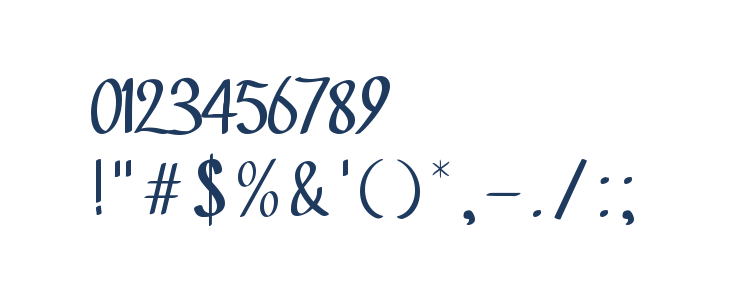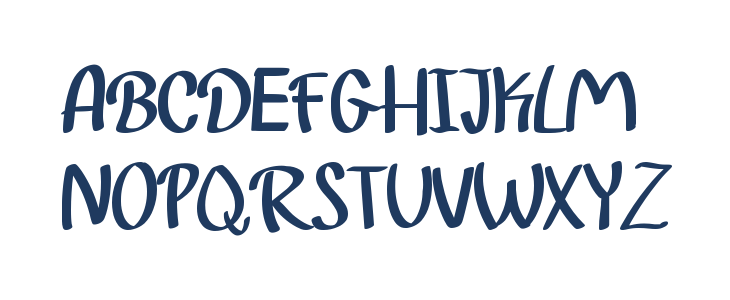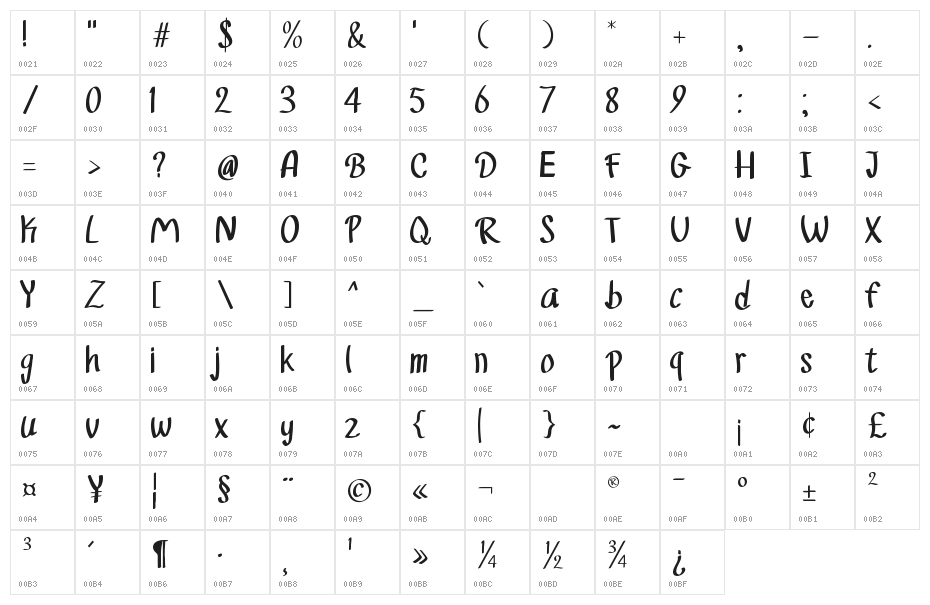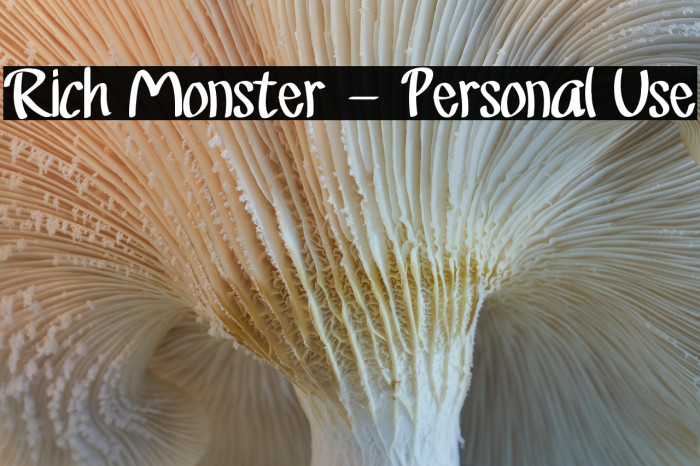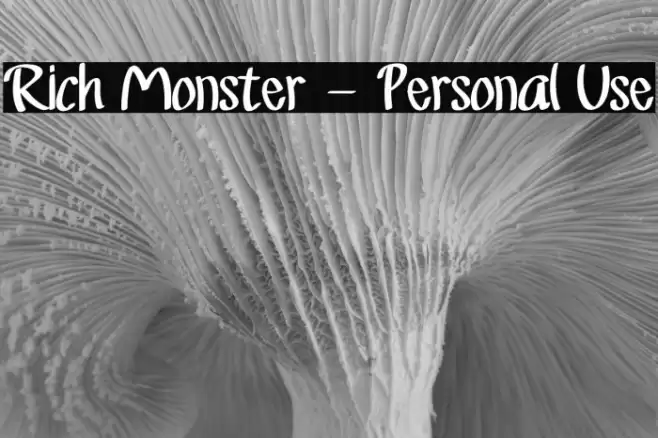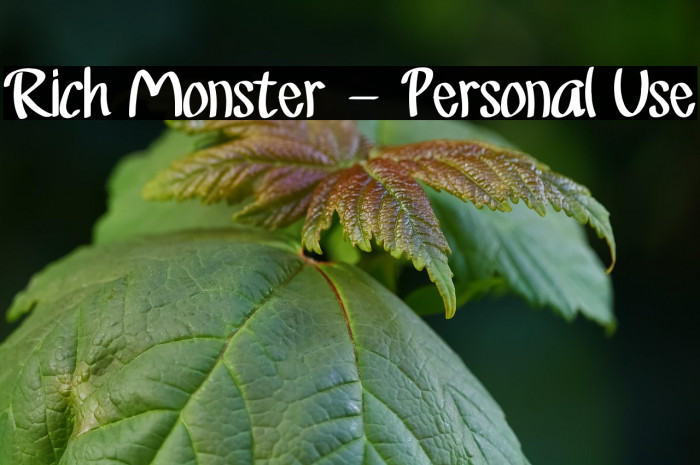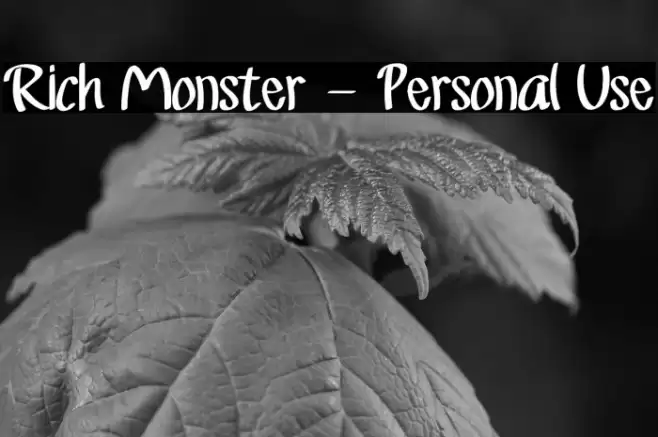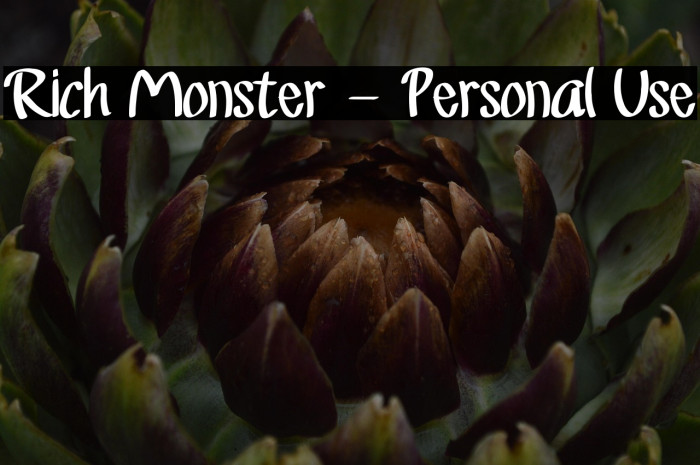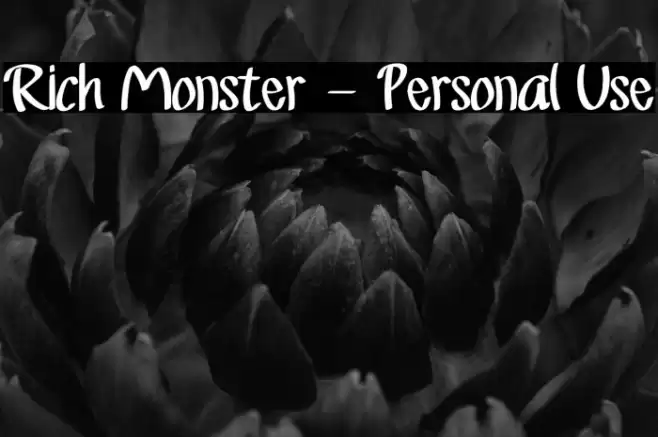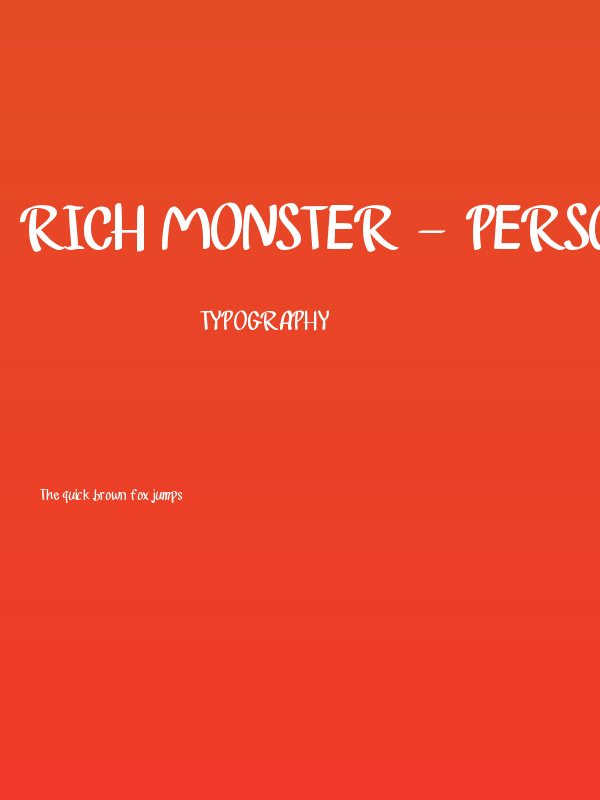
Rich Monster - Personal Use Font
Rich Monster - Personal Use Description
A playful, handwritten script font with a casual and friendly appearance, featuring slightly irregular strokes and a smooth flow.
| Overall Style | Casual, Friendly, Handwritten |
| Use Case | Headlines, Body text, Logos, Invitations |